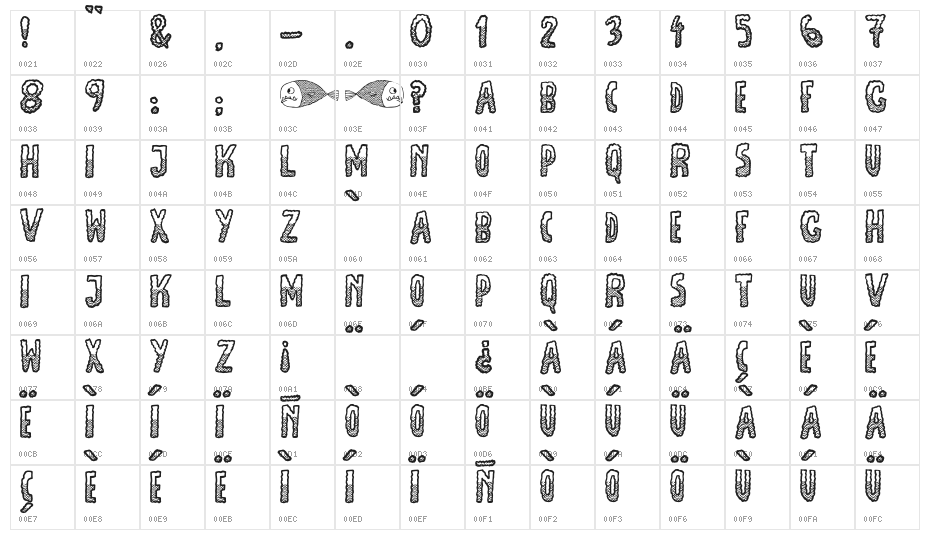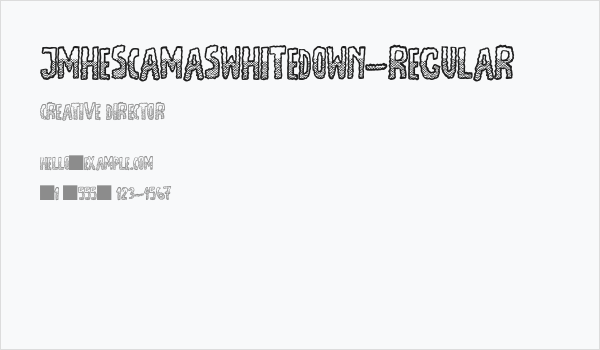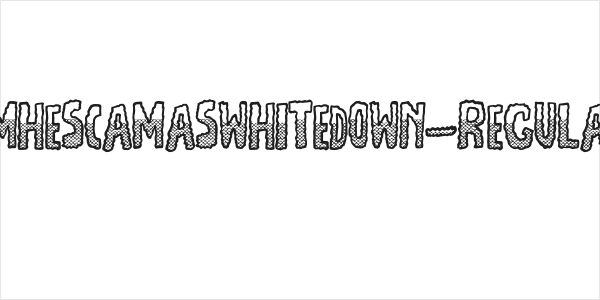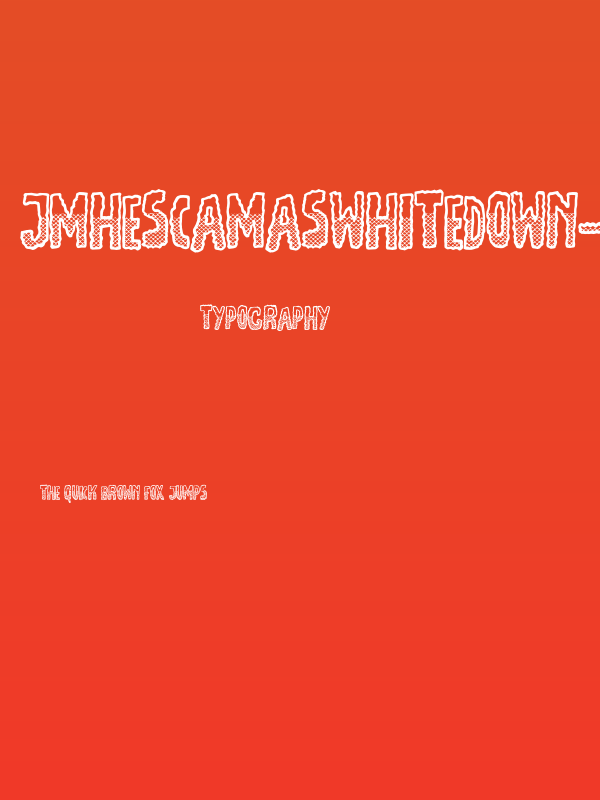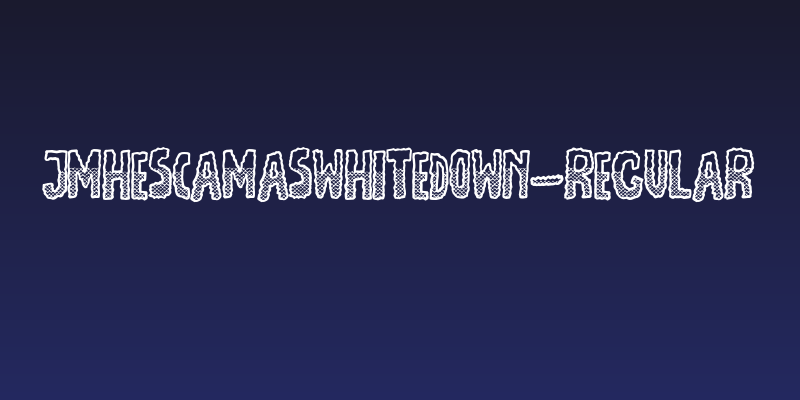
JMHEscamasWhiteDown-Regular Font
JMHEscamasWhiteDown-Regular Description
This font features a unique and playful design with a textured, scale-like pattern filling each character. The bold, outlined letters have a hand-drawn quality, giving them a whimsical and artistic appearance. The uppercase and lowercase letters maintain a consistent style, with rounded edges and a slightly irregular form that adds to the charm. Numbers and special characters follow the same design principles, ensuring a cohesive look across all elements. This font stands out with its decorative and eye-catching style, perfect for creative projects.
| Proposed Projects | Ideal for children's book covers, playful branding, creative posters, and artistic invitations. |